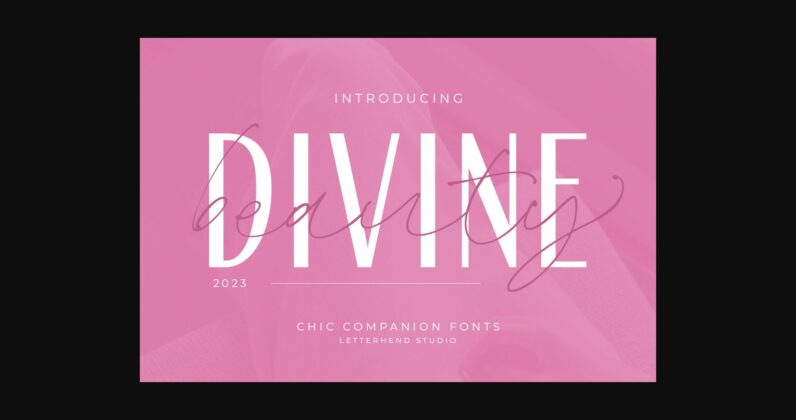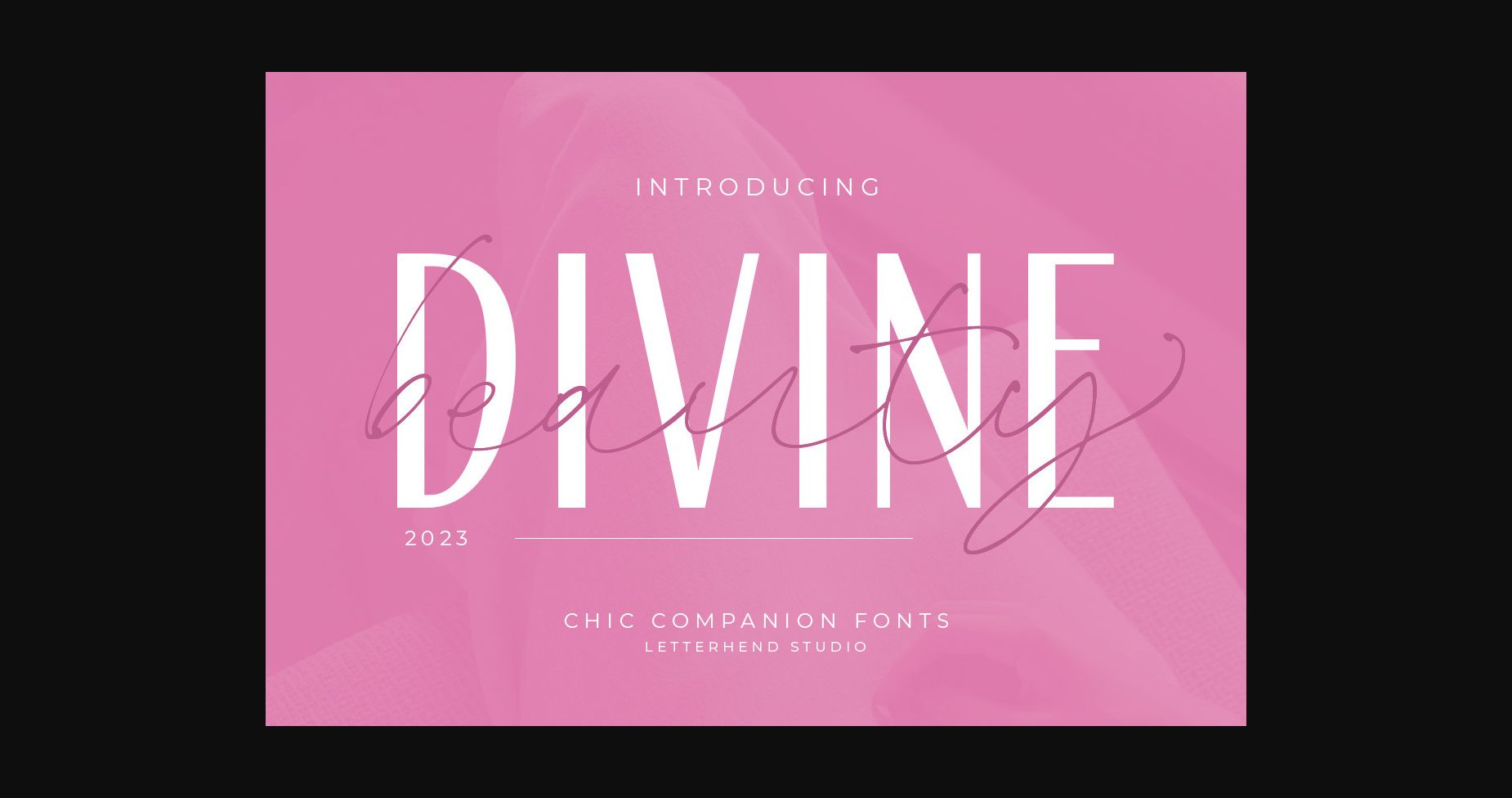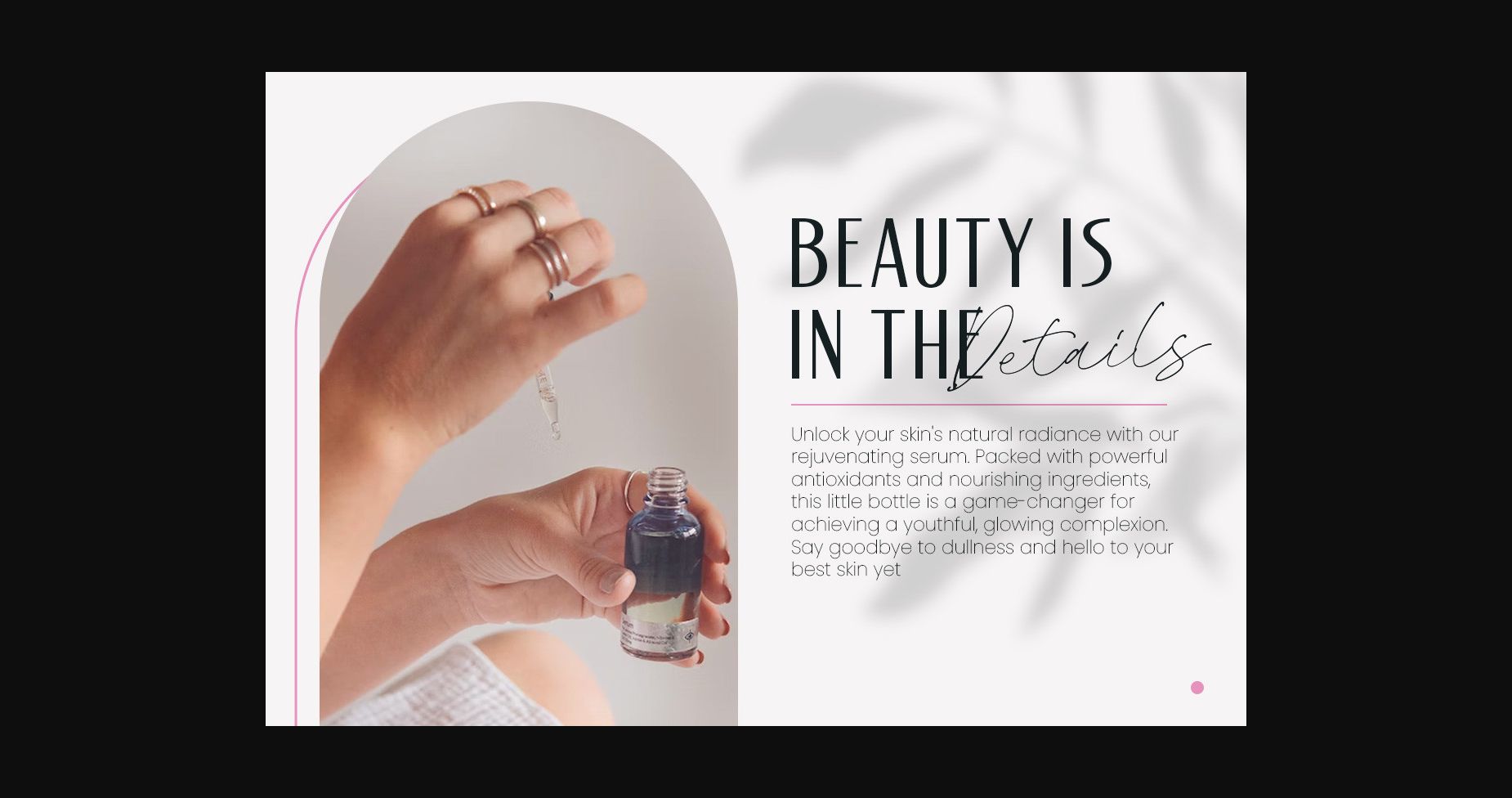
About Divine Beauty Font
The Divine Beauty font is characterized by its simplicity and modernity. The clean lines and balanced proportions of the sans-serif font complement the elegant curves and flourishes of the serif font, creating a harmonious and visually appealing pairing.